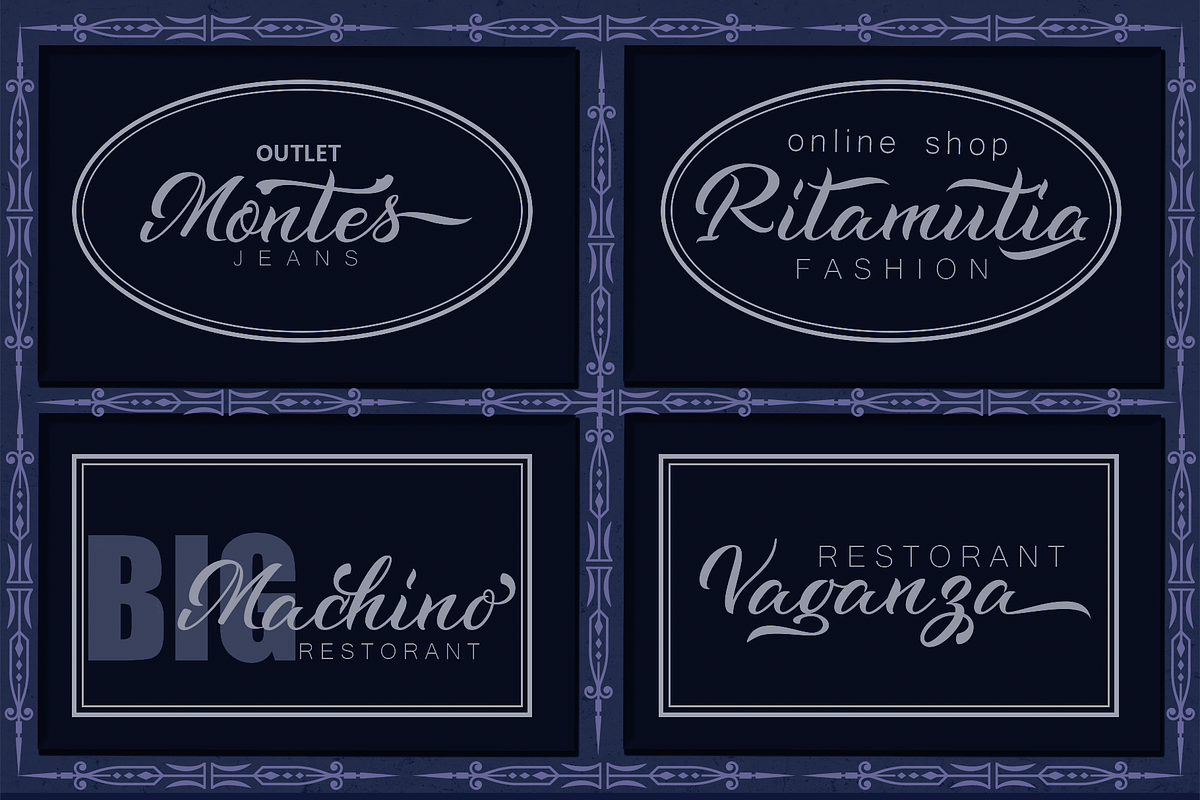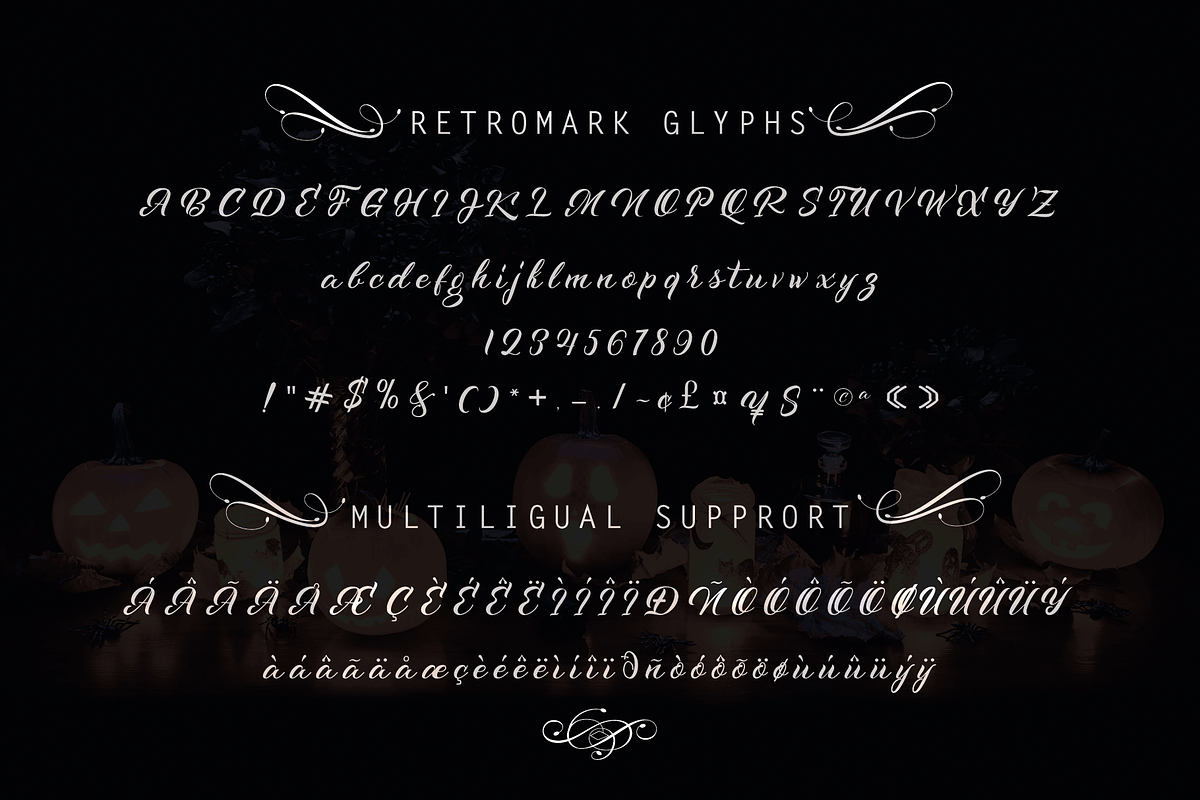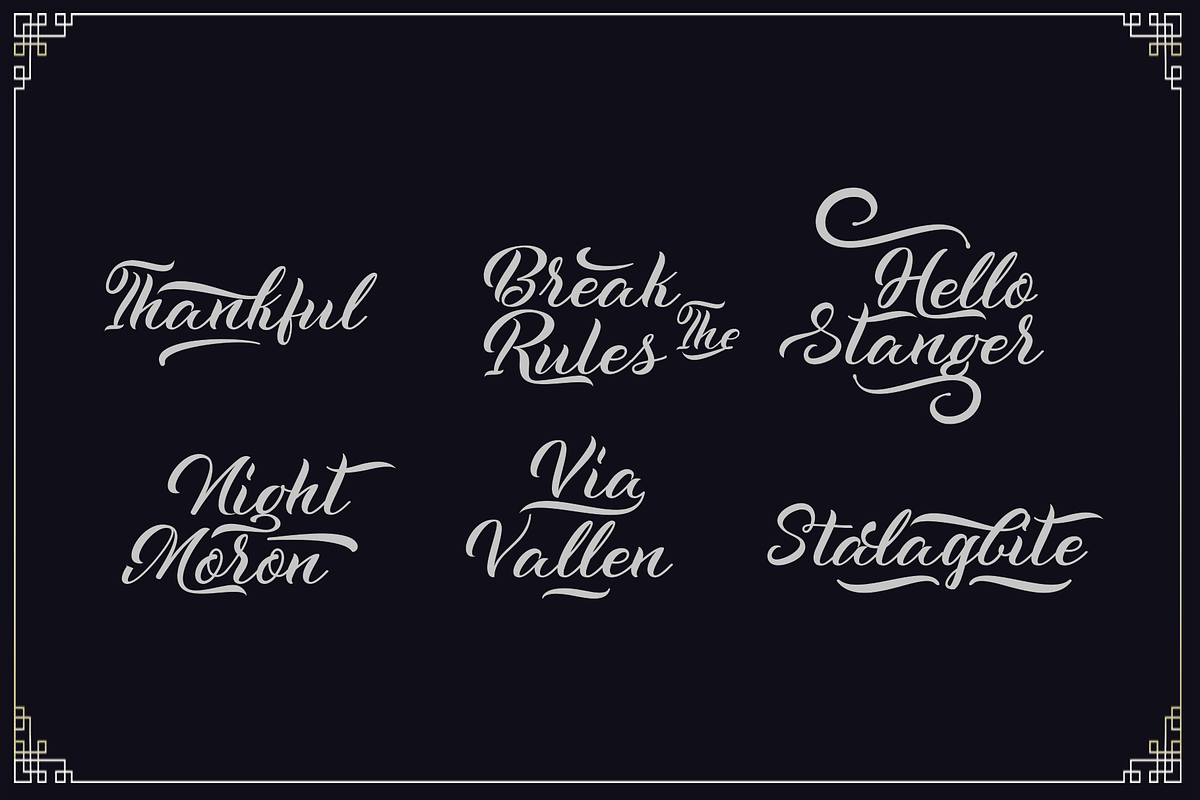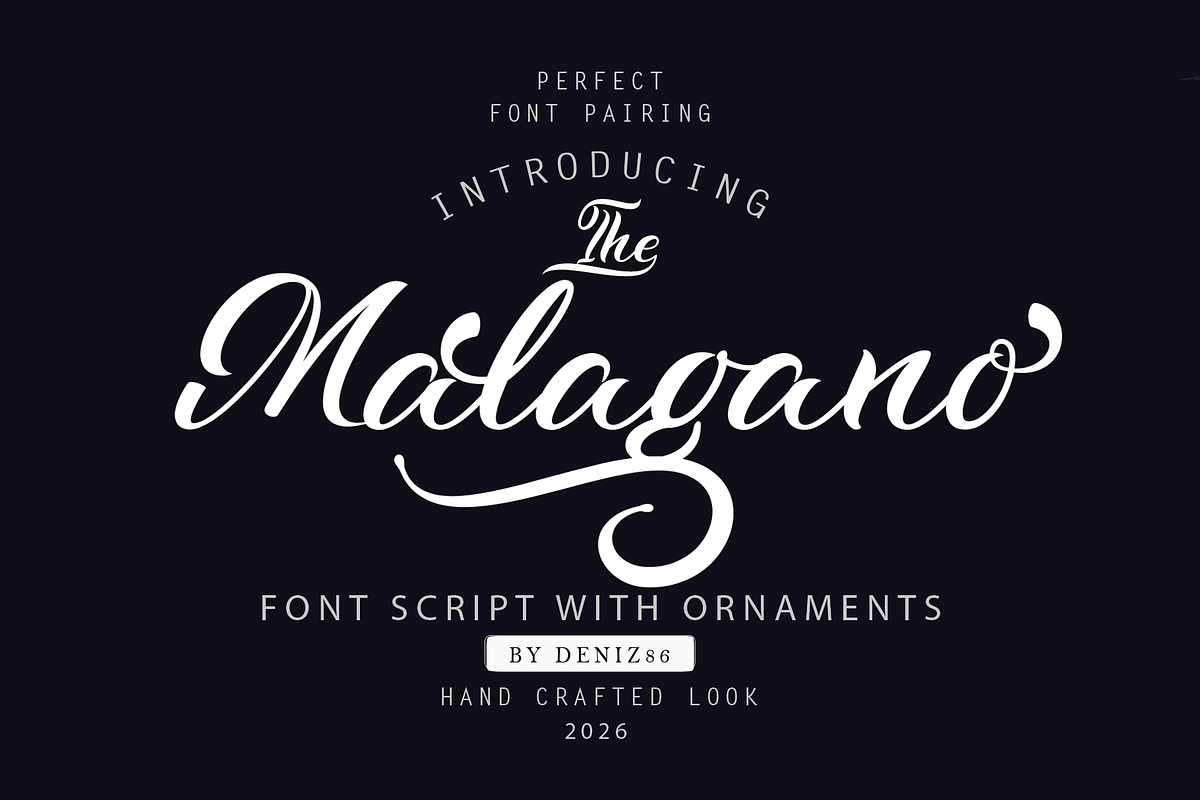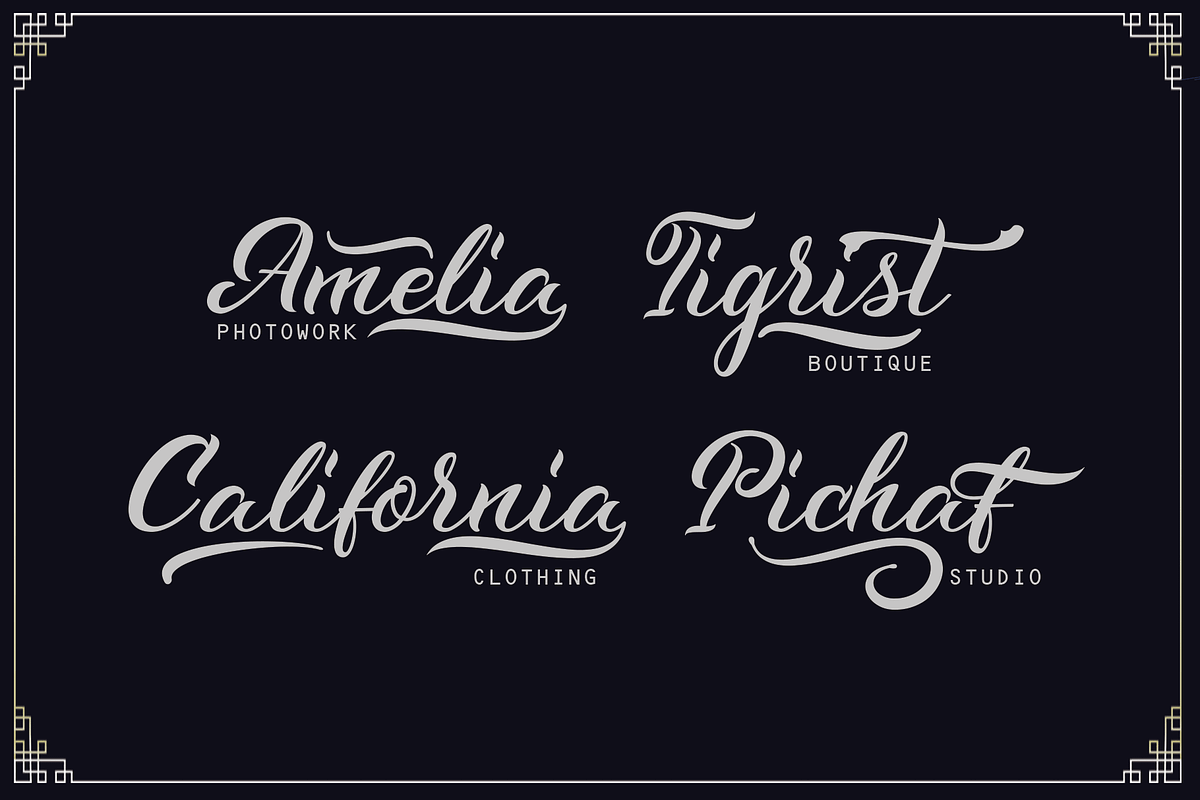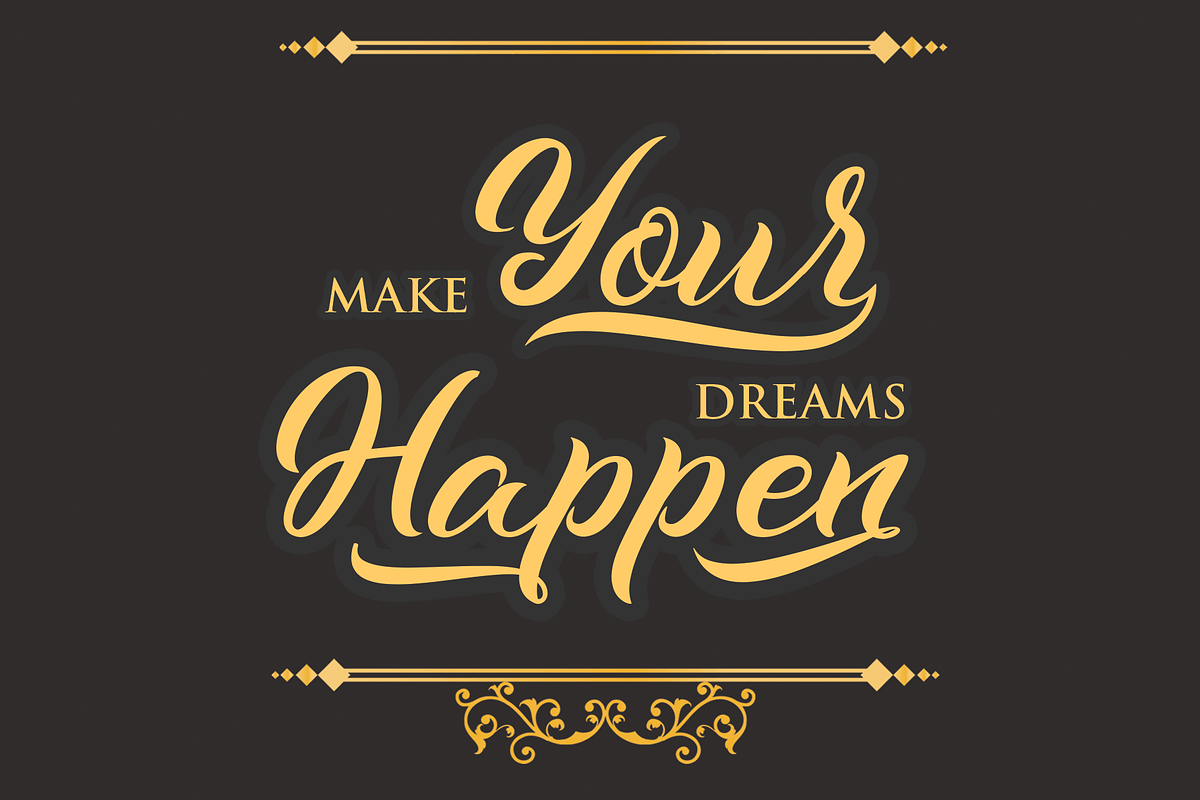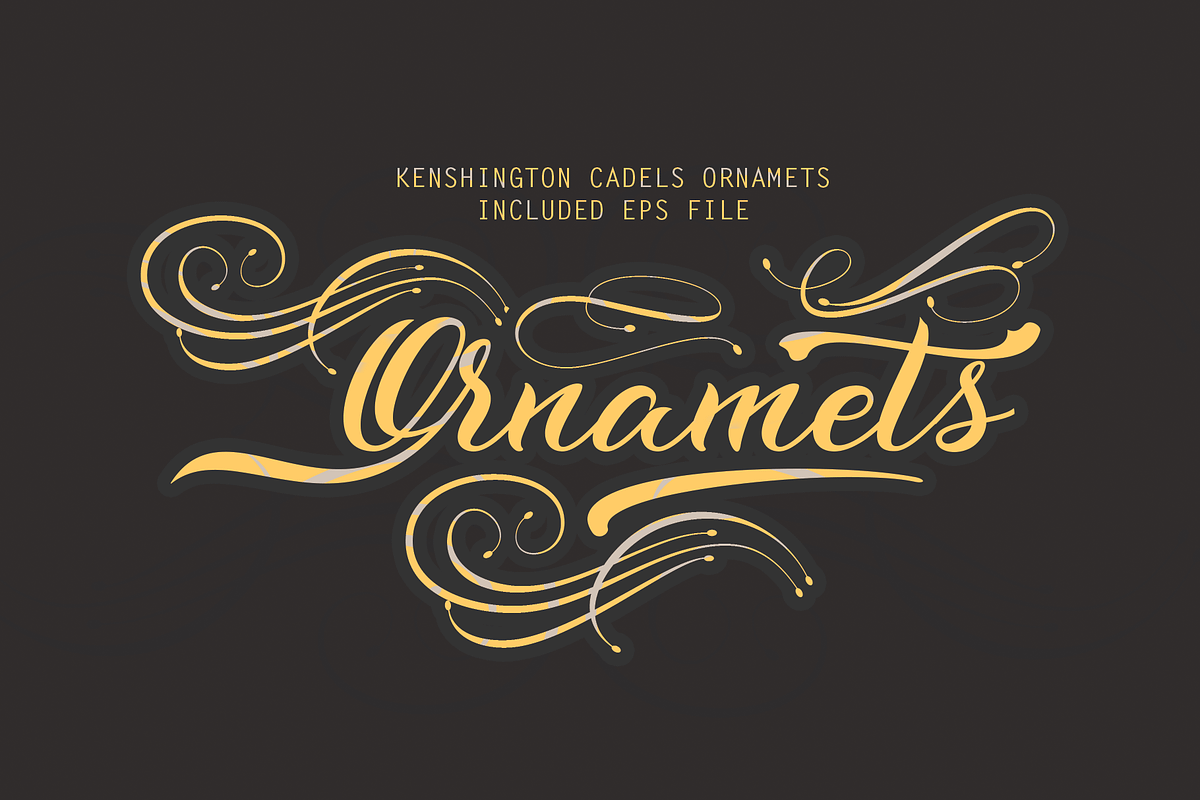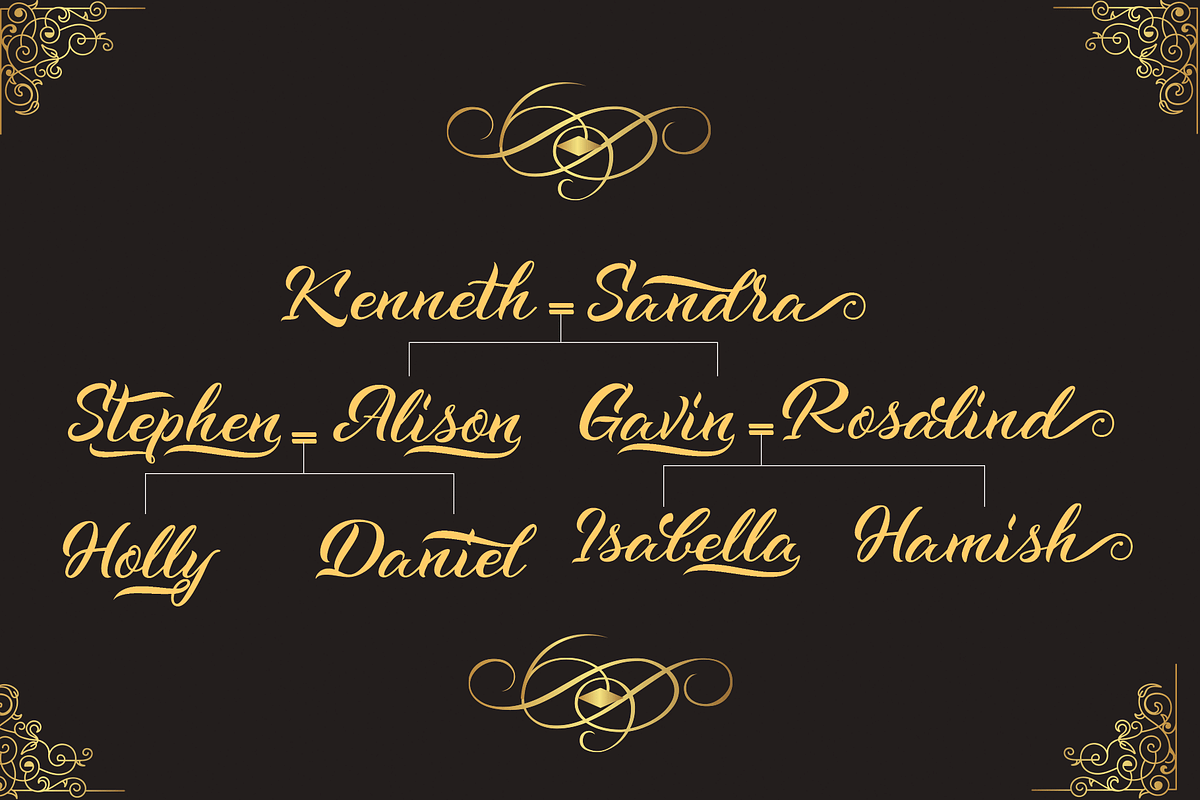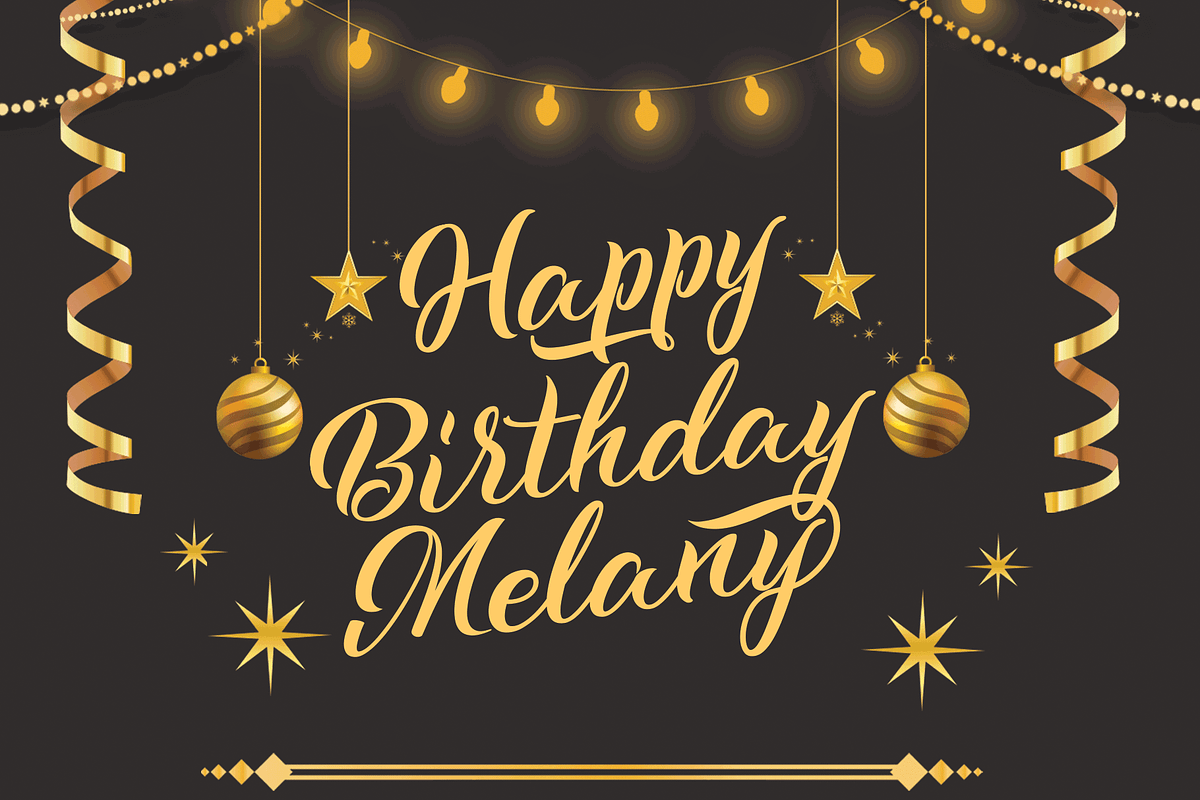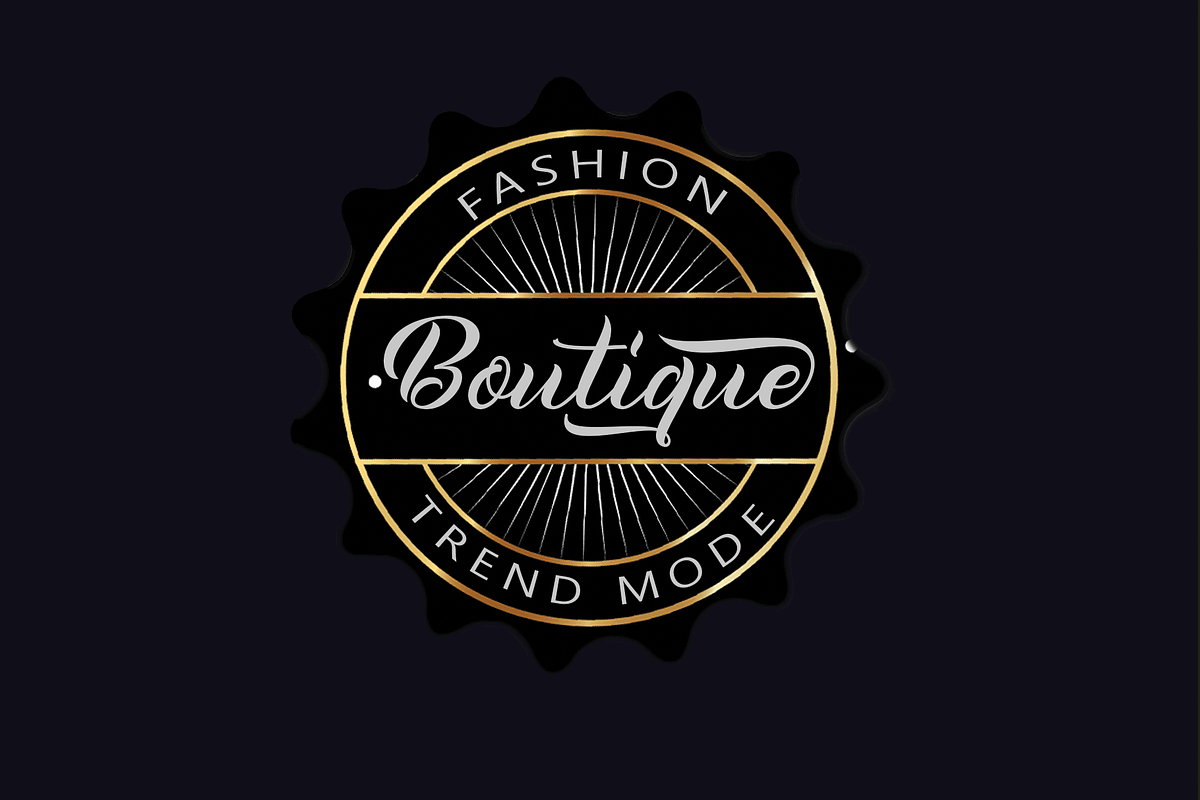
The Malagano
BRAND NEW!!!! Introducing – The Malagano a hand crafted Font Collection!
The Malagano Script is retro signage font, bold and clean. Include Opentype stylistic alternates. You are able to create so many different typographical layouts easily and quickly. Make sure you use OpenType savvy program and simply open Glyph Palette to access all of the glyphs. This font is suitable for t-shirts, signage, logos, headlines, branding, packaging, etc.
The Malagano Script memiliki surat-surat awal dan terminal, alternatif, ornaments,Cadels Ornaments, swash, ligatures.